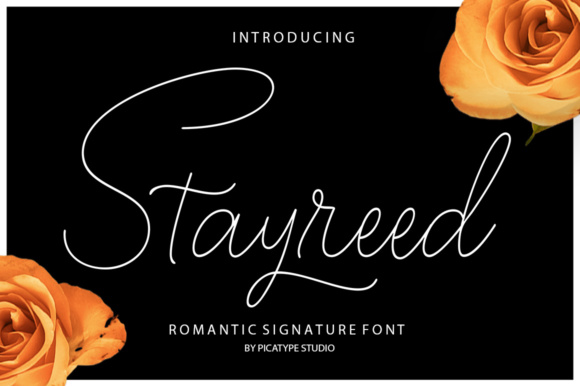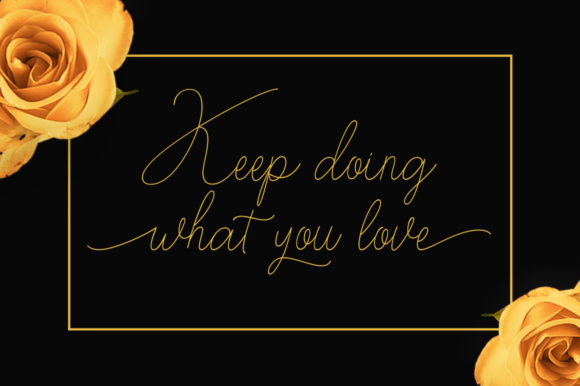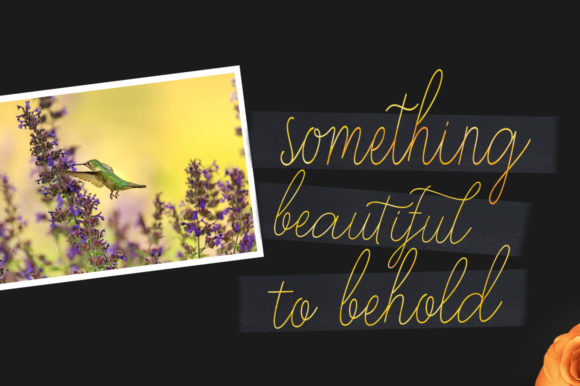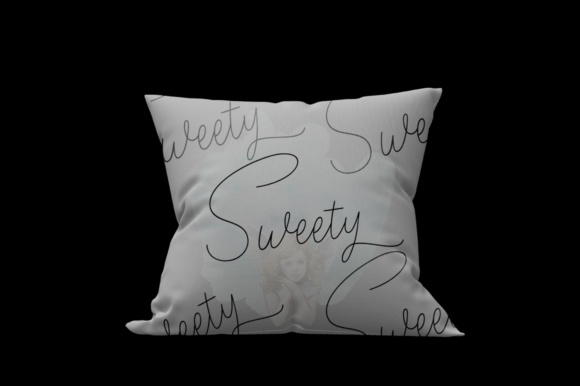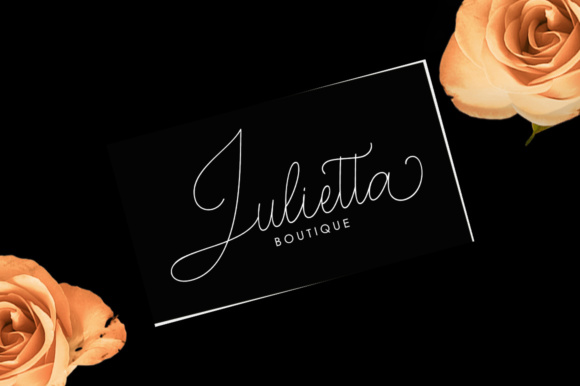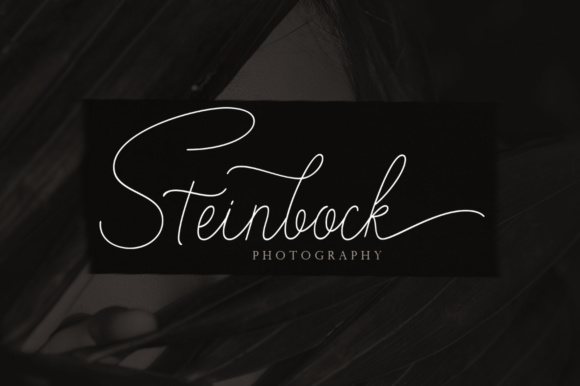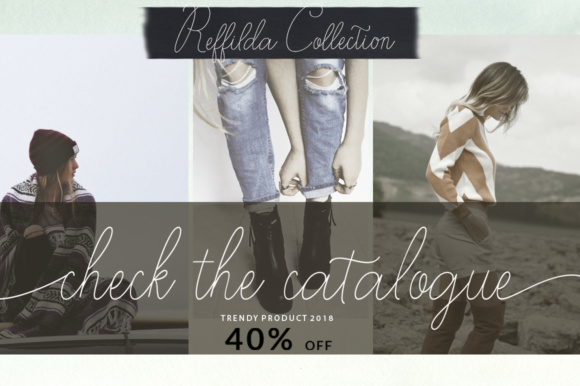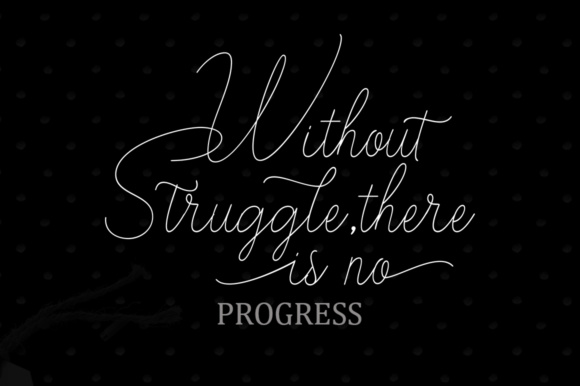
Stayreed Font
About Stayreed Font
Stayreed is a gorgeous calligraphy font, perfectly pretty for use in a wide range of projects. This thin, monoline font is ideal for use in a ton of different designs.